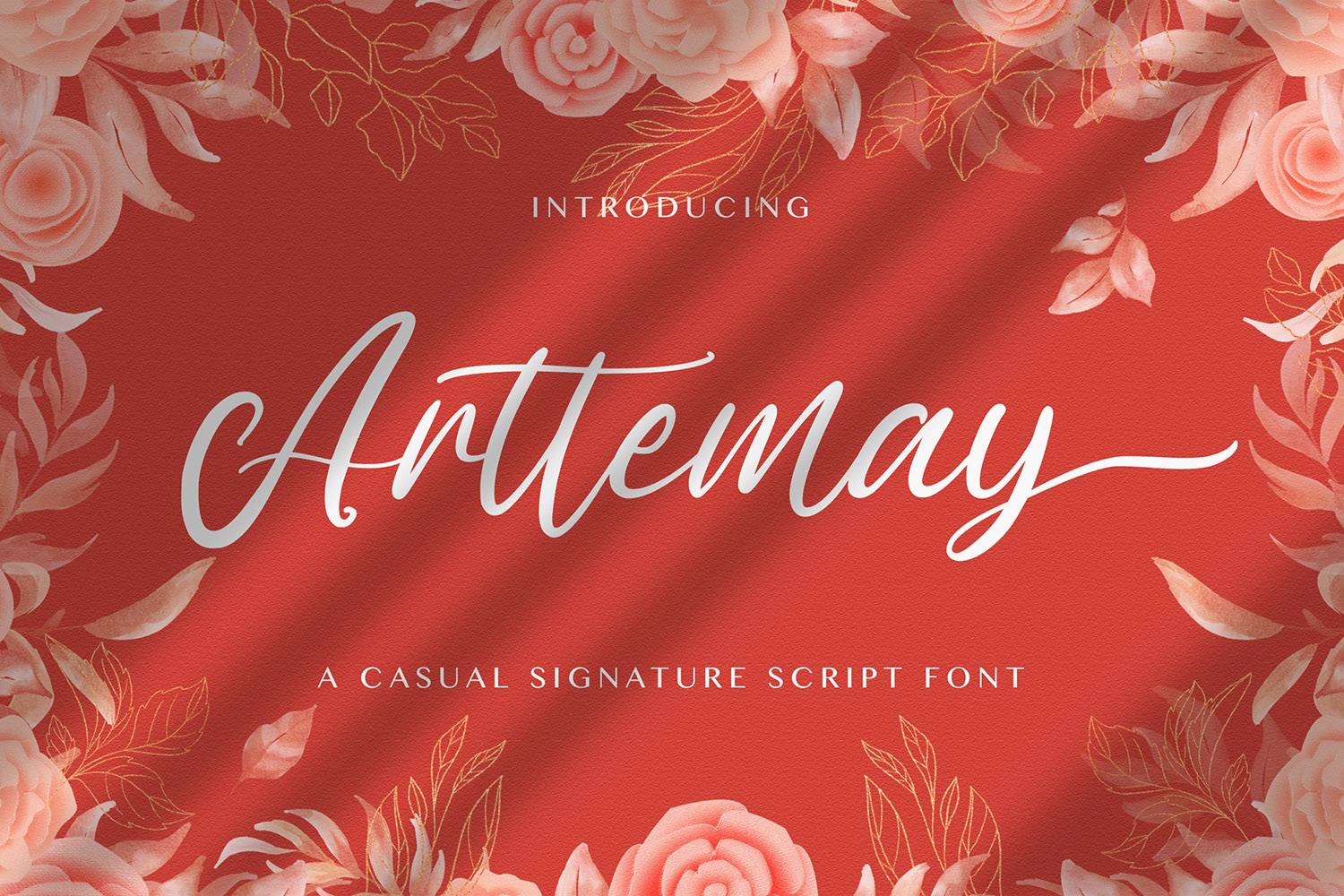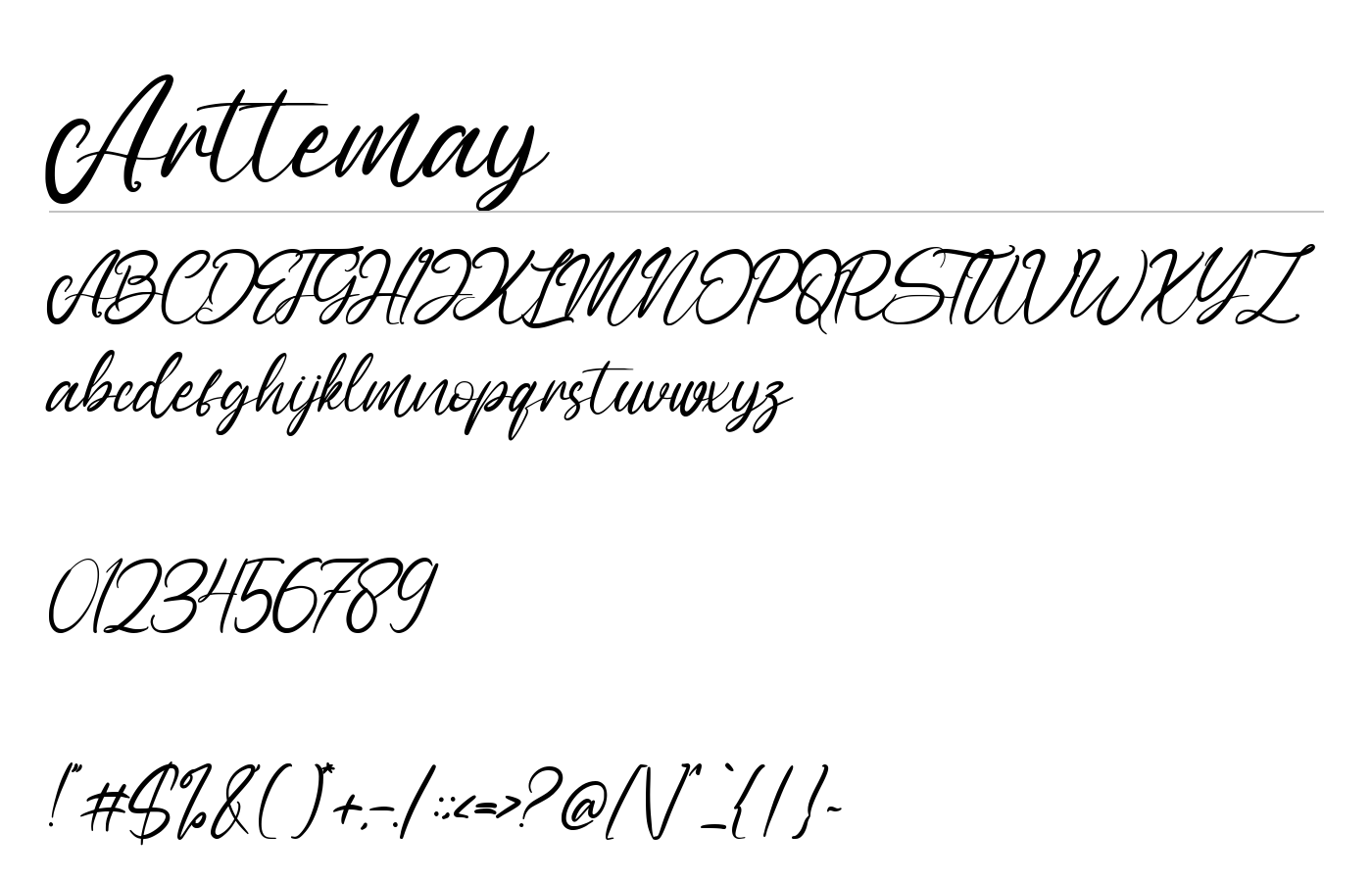
Arttemay is an elegant script font with a flowing, handwritten style that feels both graceful and modern. Its slender strokes and smooth curves give it a sophisticated yet approachable personality, making it ideal for invitations, branding, and stylish editorial projects where a touch of refinement is desired. This font works beautifully in settings that call for an artistic and classy feel without being overly ornate.
Arttemay Font
About Arttemay Font